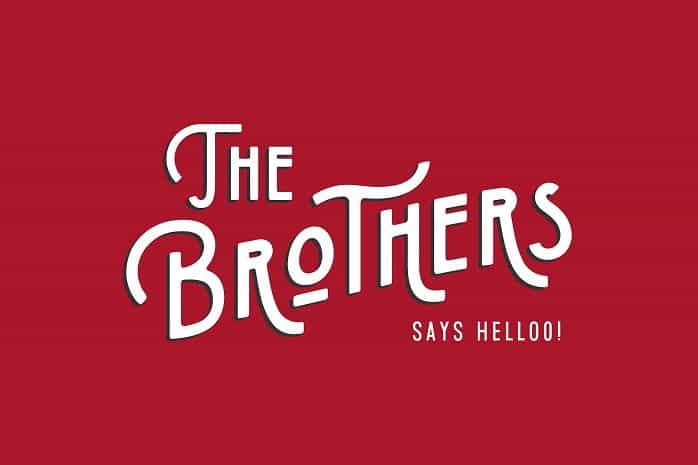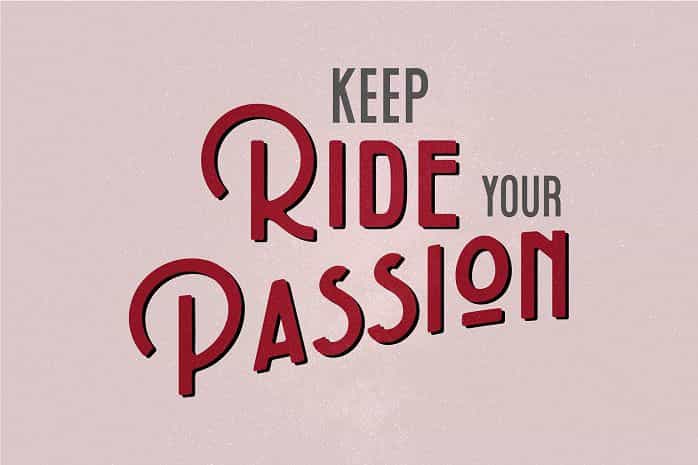
Introducing Clethons Djoice Font. It was developed by cob, this is a high-quality font that is available on creativemarket for sale but it has been offered for free today. The Clethons Djoice Typeface is a Vintage typeface for typography, lettering, logotype and more with +200 smooth glyphs included together with the Opentype Features. Now it has been combined free varche sans which makes perfect sense to create Elegant Design, Modern Style, Old-fashioned Look and more.